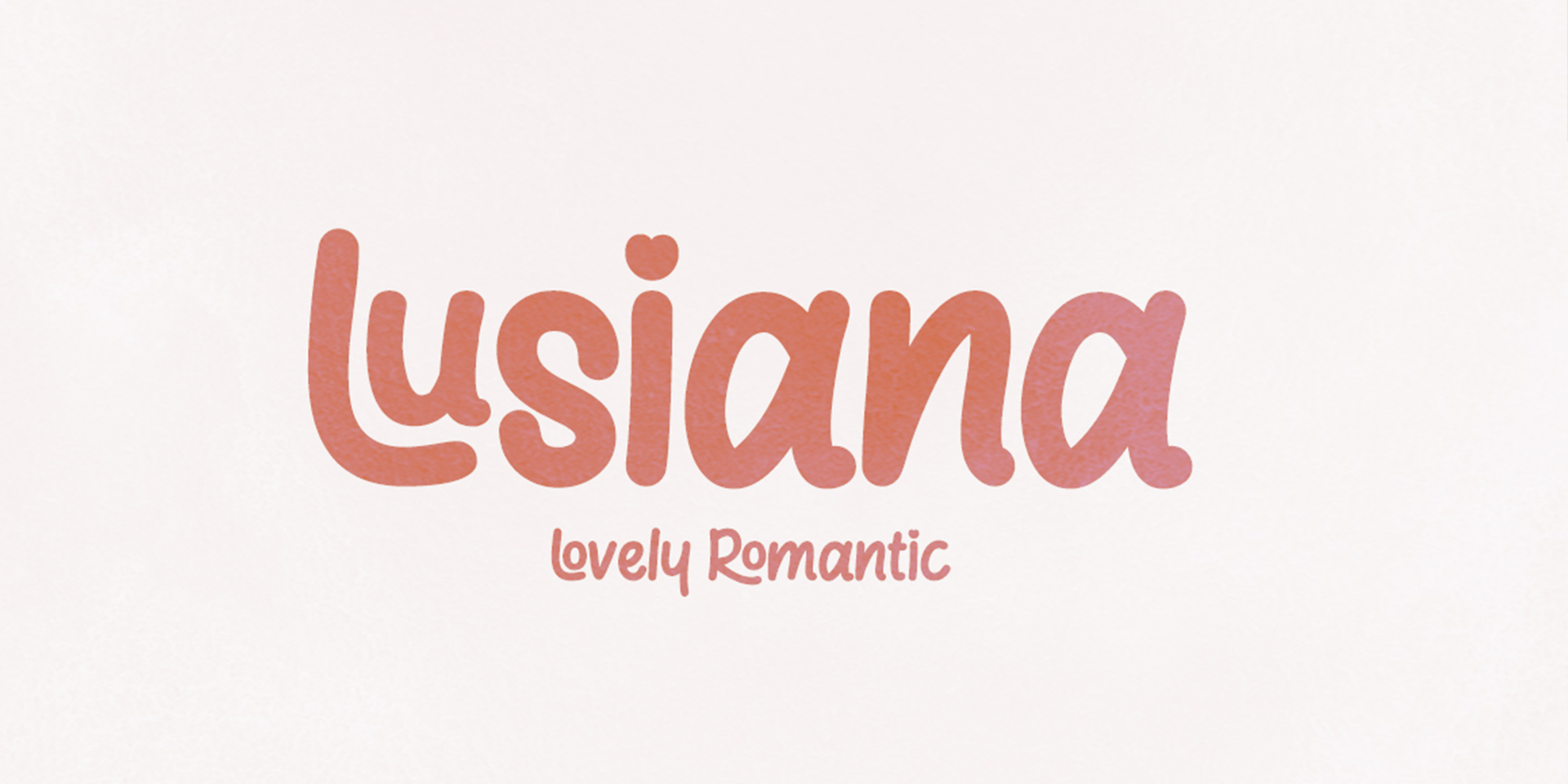
The Lusiana Font excels in luxury spa branding, premium beauty salons, elegant wellness centers, sophisticated cosmetic packaging, upscale fashion communications, refined lifestyle magazines, luxurious resort materials, and opulent design applications that require luminous elegance with lustrous character and sophisticated radiance.
What makes the Lusiana Font Free Download so exciting is its exceptional ability to convey luminous beauty and sophisticated radiance through typography that embodies both the lustrous quality of precious metals and the glowing elegance that defines luxury lifestyle experiences. This typeface features graceful letterforms with lustrous characteristics that suggest polished marble, shimmering silk, and the refined brilliance that elevates ordinary experiences into extraordinary moments of luxury and sophistication. Its radiant aesthetic speaks to discerning audiences who appreciate both natural beauty and cultivated elegance, making it perfect for luxury beauty brands, premium wellness services, and sophisticated lifestyle organizations requiring typography that projects both luminous authority and lustrous authenticity.
The Lusiana Font family encompasses elegant weight variations from Light to Bold, each maintaining the font's signature lustrous character and sophisticated radiance. The collection includes Regular, Medium, and Bold styles with enhanced luminous characteristics that reinforce the font's luxury appeal and elegant authority. This lustrous font system ensures luxury service providers and premium beauty brands have access to typography that conveys genuine sophistication while creating immediate connection to concepts of radiant beauty, lustrous quality, and luminous lifestyle excellence.
Perfect for luxury spas, premium beauty brands, upscale wellness centers, and creative professionals working on projects that celebrate radiant beauty and sophisticated luxury with lustrous elegance. The font's luminous appeal makes it invaluable for luxury marketers, beauty communicators, and premium service designers developing communications that must shimmer with authentic sophistication while inspiring radiant confidence. Download Lusiana Font Free Download today and illuminate your luxury projects with this exceptional typeface that glows with lustrous beauty while delivering sophisticated radiance and luminous authenticity for premium communications.